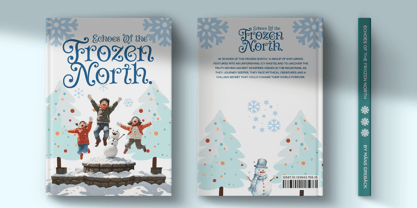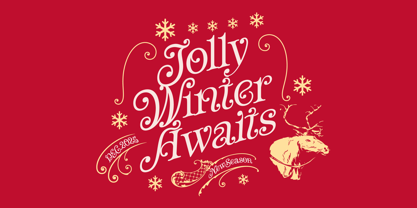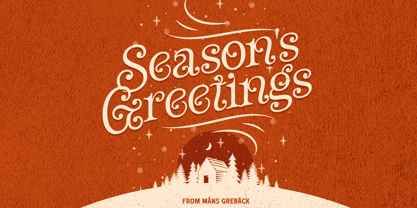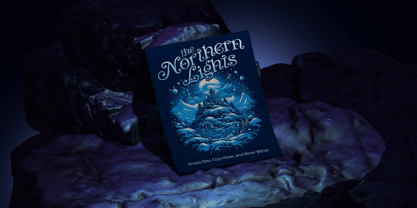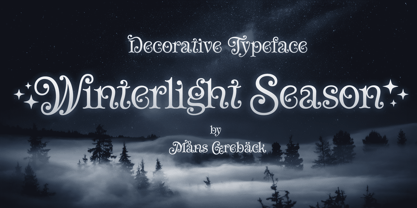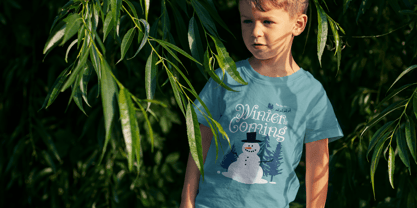
Winterlight Season
por Mans Greback
La familia tipográfica Winterlight Season fue diseñada por Måns Grebäck y publicada por Mans Greback. Winterlight Season contiene 5 estilos y opciones de paquete familiar. Más información sobre esta familia
Winterlight Season captures the enchanting essence of winter with its flowing, swirly design. Inspired by snow-laden branches and the elegance of frost patterns on glass, it evokes the charm and beauty of the colder months. Each letter feels like it dances through the air, reflecting the joy and wonder of the Christmas season. This font carries a lovely sophistication, perfect for creating a warm and festive atmosphere.
Use the percent character % and a number to create Xmas symbols.
Example: Secret %37 Santa
The font is built with advanced OpenType functionality and guaranteed top-notch quality, containing stylistic and contextual alternates, ligatures, and more automatic and manual features; all to give you full control and customizability.
It has extensive lingual support, covering all Latin-based languages, from North Europa to South Africa, from America to South-East Asia. It contains all characters and symbols you'll ever need, including all punctuation and numbers.
Crafted with care and attention to detail, Winterlight Season is designed to bring elegance and charm to your projects, celebrating the beauty of winter in every letter. A work from Mans Greback.